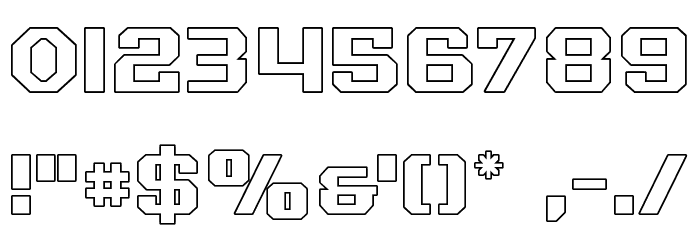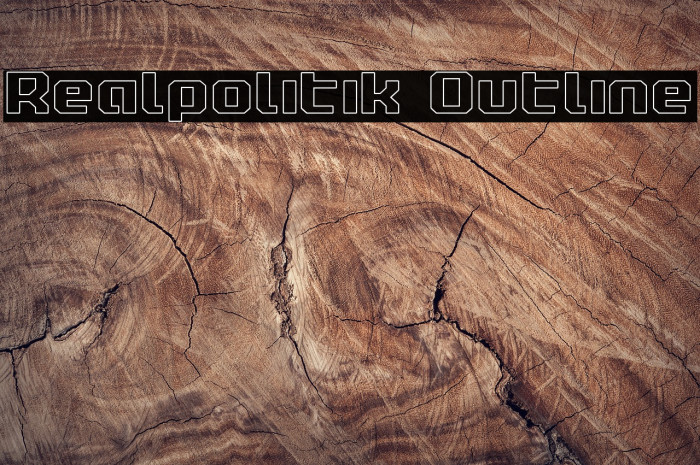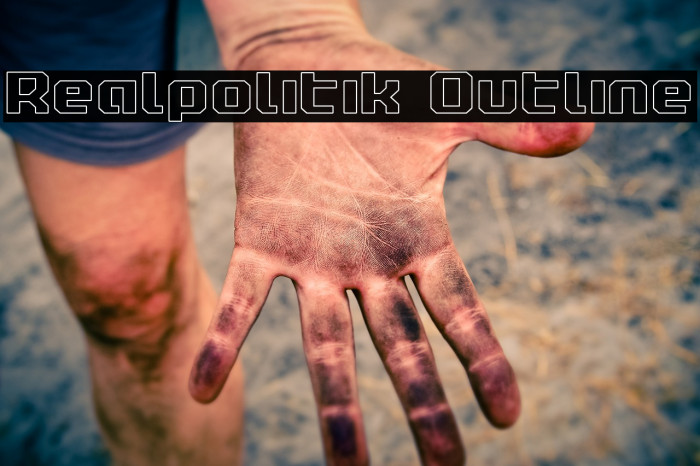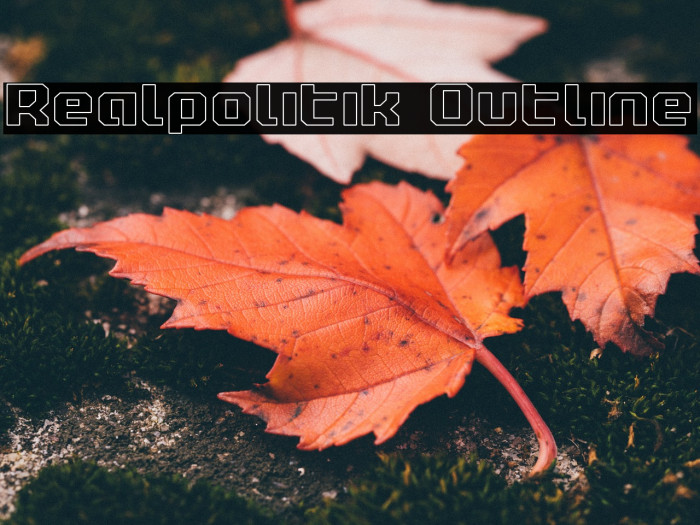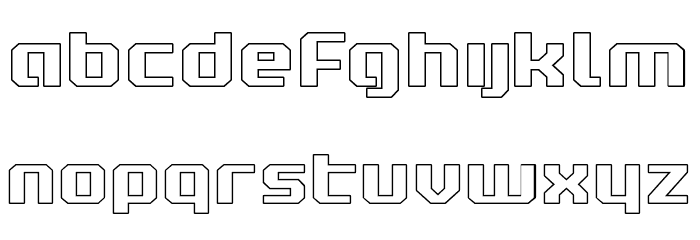
Realpolitik Outline Font
This font features a bold, geometric outline style that gives it a modern and industrial feel. The characters are constructed with straight lines and sharp angles, creating a sense of precision and strength. The uppercase and lowercase letters maintain a consistent width, contributing to a uniform appearance. The numerals and special characters follow the same design principles, ensuring a cohesive look across all glyphs. The outline nature of the font adds a unique touch, making it suitable for projects that require a standout, eye-catching typeface. Its structured formality is balanced by the open spaces within each character, offering a blend of readability and visual interest.
A bold, geometric outline font with a modern, industrial aesthetic.
• Proposed Projects: Ideal for branding, posters, headlines, and any design requiring a strong, modern typeface.